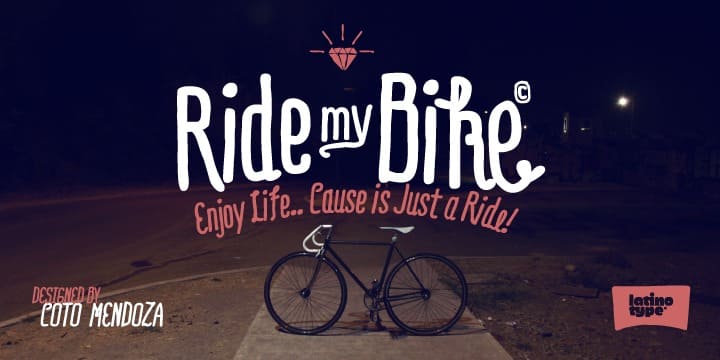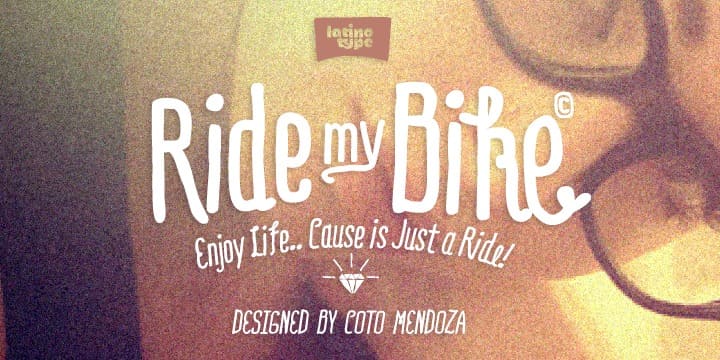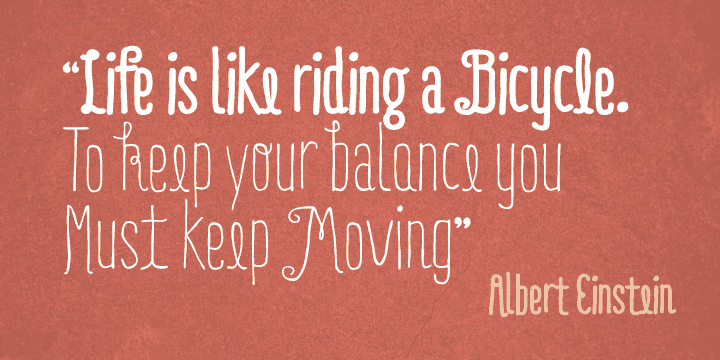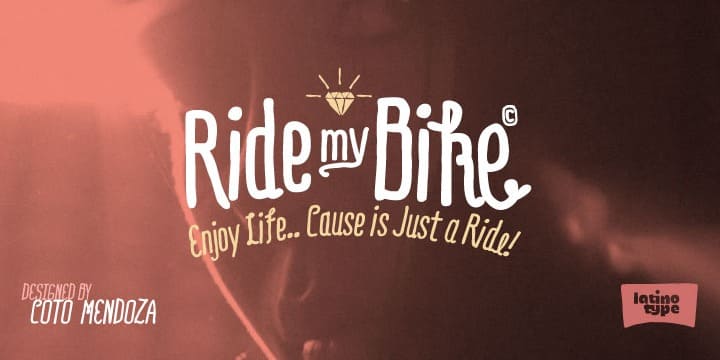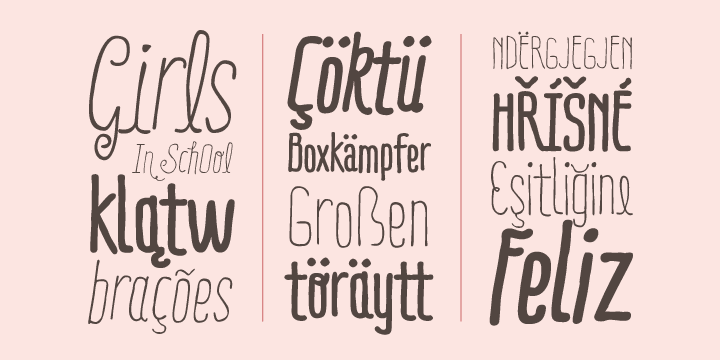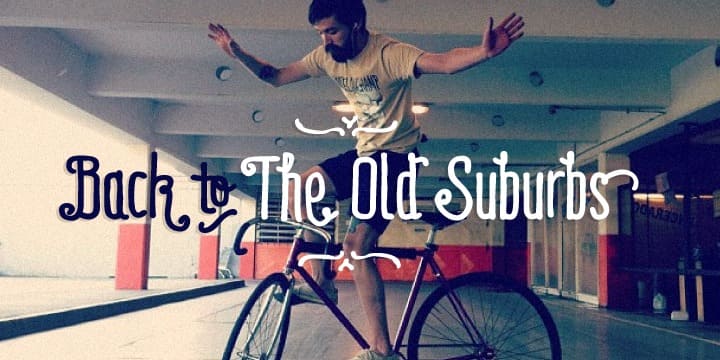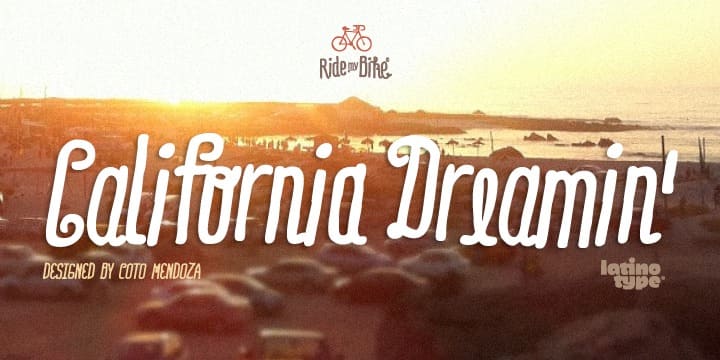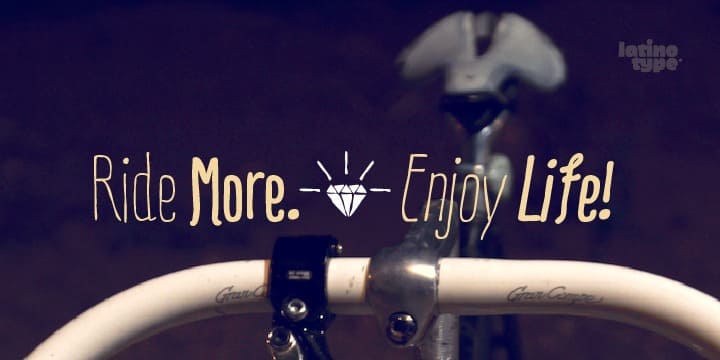
Perfect for use in headlines, brands and fashion photography compose alternative, thanks to its leading characters, terminals, alternate characters and ligatures that you can find in the Pro version. This version contains more than 600 glyphs. The 'Dingbats' font in this family has 91 dingbats, very fun to compliment and accentuate the handmade design.
Come! Get on it and let’s go ride my bike!